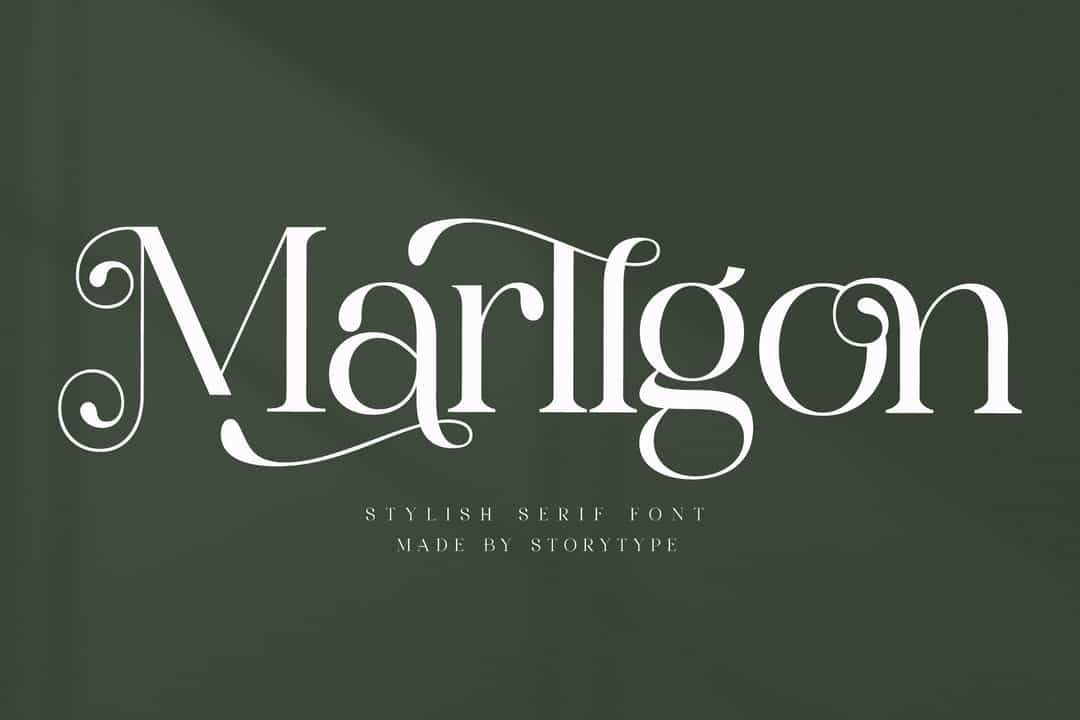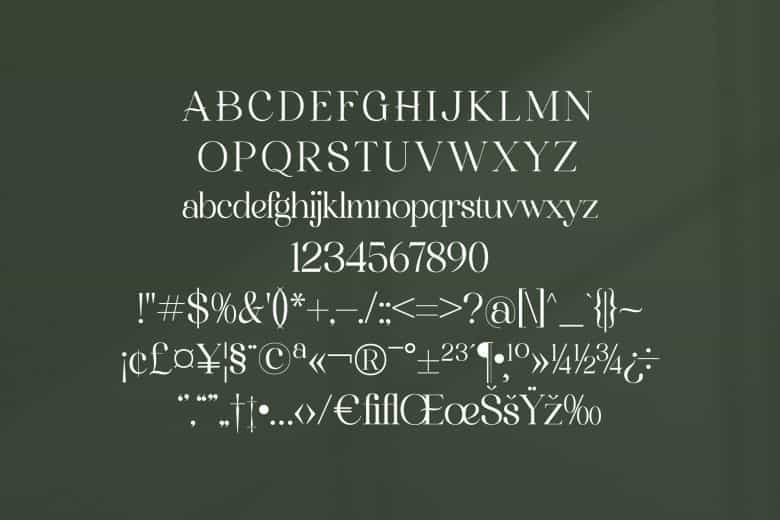
Discover Marllgon Font, part of the Serif collection—a versatile and unique font perfect for adding a personal touch to your projects. Download it for free and enjoy crafting designs with style, from invitations to social media posts. This font is available exclusively for personal use, giving you the freedom to create without limits. Unlock your creativity with Marllgon Font today!
Storytype’s Marllgon Serif Font is a contemporary yet timeless typeface, distinguished by its distinct style and appearance. Perfect for creating classy logos, movie or book name designs, fashion brand clothing labels, magazines lettering or quotations this typeface offers versatility across various applications and industries.